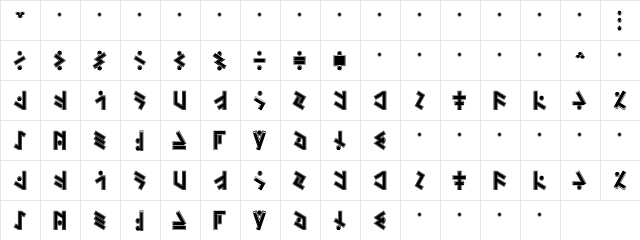
Temphis Sweatermonkey Regular
| Designer | S. John Ross |
Design Context for Temphis Sweatermonkey Typeface
Temphis Sweatermonkey is a composed and adaptable typeface that performs quietly and consistently across a wide range of design contexts.